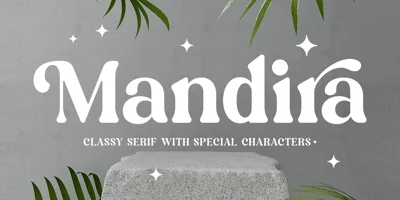
Mandira Font
Mandira Font is perfect for Indian cultural centers, authentic curry house branding, yoga studio signage, spiritual retreat materials, Bollywood movie graphics, traditional Indian wedding invitations, Ayurvedic wellness centers, meditation app interfaces, Sanskrit learning materials, and any vibrant project that celebrates the rich spiritual heritage and colorful cultural traditions of Indian civilization and South Asian artistic expression.
What makes Mandira Font exciting is its spiritual elegance that captures the profound wisdom of ancient Indian traditions and the vibrant beauty of South Asian cultural artistry. This typeface embodies the essence of Indian spirituality with graceful letterforms that suggest traditional Sanskrit manuscripts, ornate temple carvings, and the flowing rhythm of classical Indian dance. The font's transcendent character makes it perfect for brands and projects that want to communicate spiritual depth, cultural authenticity, and the timeless appeal of Indian philosophical traditions and artistic heritage.
The Mandira Font family includes multiple weights and cultural variations, featuring light, regular, and bold versions along with decorative elements and alternate characters inspired by Devanagari script and traditional Indian artistic motifs. This comprehensive collection allows designers to create culturally respectful typography that maintains the font's signature spiritual character while providing flexibility for various Indian cultural and wellness design applications.
When exploring authentic Indian typography, Mandira Font offers designers an exceptional opportunity to work with a typeface that genuinely captures the spirit of Indian cultural heritage and spiritual tradition. This font demonstrates innovative design thinking by incorporating the flowing grace and ornamental beauty that define both classical Indian calligraphy and the contemporary global appreciation for Indian philosophy and wellness practices.
Professional designers appreciate Mandira Font for its ability to instantly communicate cultural authenticity and spiritual sophistication across various wellness and cultural platforms. The font's elegant character makes it particularly effective for Indian restaurants, yoga studios, and wellness brands seeking to establish authentic connections with audiences drawn to Indian culture and spiritual practices.
The universal appeal of Mandira Font lies in its perfect representation of Indian spiritual wisdom and cultural beauty that continues to inspire people worldwide seeking deeper meaning and authentic cultural experiences. This typeface serves as a bridge between ancient Indian civilization and modern global appreciation for mindfulness, spirituality, and traditional wisdom.
For creative professionals working with Indian cultural and wellness brands, Mandira Font represents the ultimate typography solution that brings authentic Indian elegance and spiritual sophistication to any application, ensuring designs reflect the cultural richness and spiritual depth that define the most treasured aspects of Indian heritage and traditional wisdom.